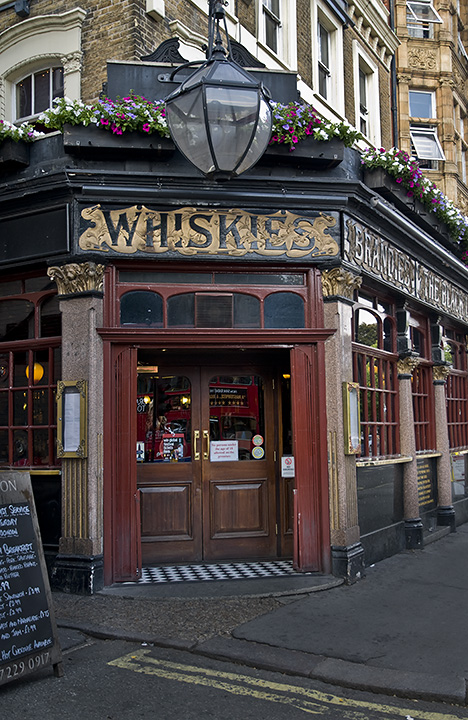
Black Lion Pub London
While I was in Rochester for the British Letterheads meet I stopped by a pub (well actually a few...hic) to see how some antique signs I had photographed some years ago were holding up only to find they all had been replaced....there were 2 full fascia's. I can only imagine the new owners say something like "Lets give the place a facelift and get rid of those old signs" never realizing they were there before the first world war...probably since about 1890 made of the finest material and outstanding excellence in craftsmanship. The Salisbury on St. Martin's Lane is the only other example of this shops work I've seen in London and am willing to wager those signs were worth no small amount. The owners also would have almost no idea of the added value of restoration rather than the garbage bin. That sort of shortsightedness is all to typical these days. I wonder what happened to the P.T.Copperpot glass pieces from Glawson and Evans? Anyway here are the old and new.
Doug, thanks for the pub update. Did you think to inquire as to what happened to the old signs?
Hi Ron, I did ask at the bar but it wasn't worth pursuing...busy, the manager wasn't in that night and barmaid knew nothing about them other than they had just installed them 2 days previous
Absolutely heartbreaking, Doug.
This sign & the Salisbury & Bath House blew me away when I first saw them in Schwartaman's "DESIGNAGE" book. (Well, just about everything in that book blows me away.) Now I'm sorry I missed this one while in London last year (too much to take in during my short visit.)